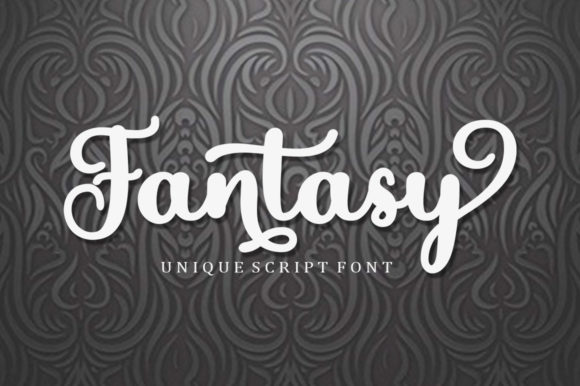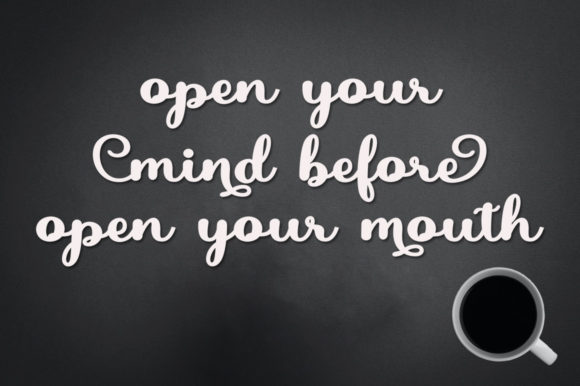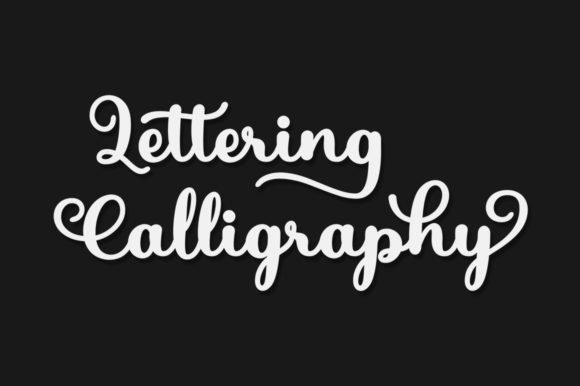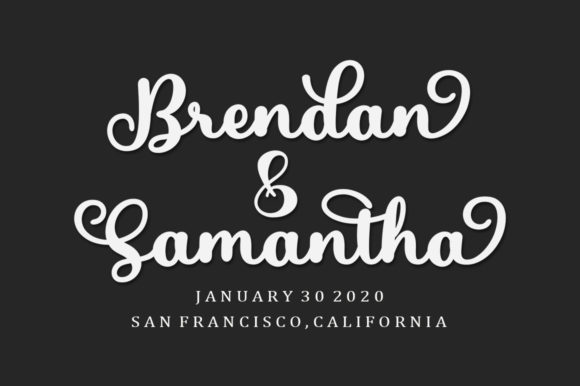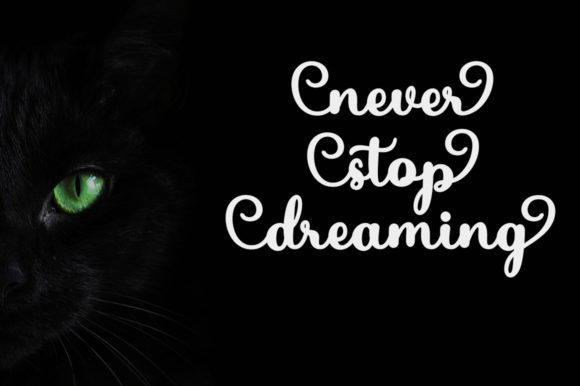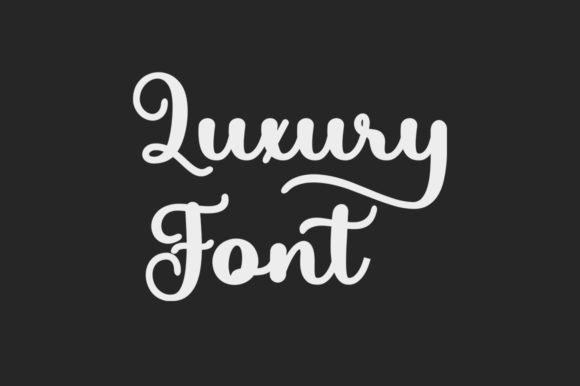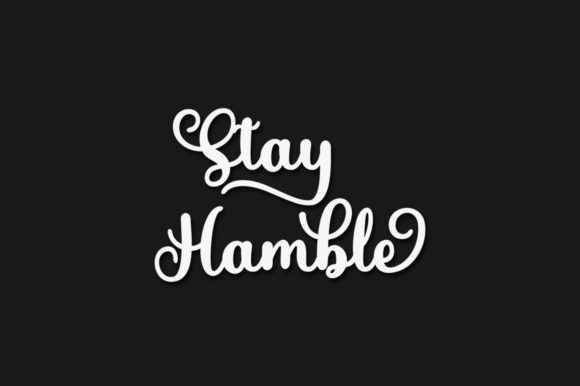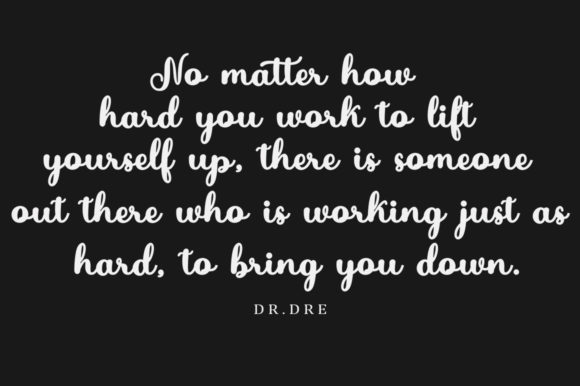
Fantasy Font
About Fantasy Font
Fantasy is a lovely script font featuring charming, playful characters that seem to dance along the baseline. This font is PUA encoded which means you can access all of the glyphs and swashes with ease!